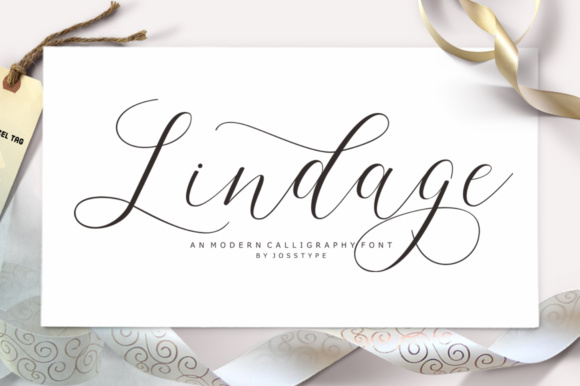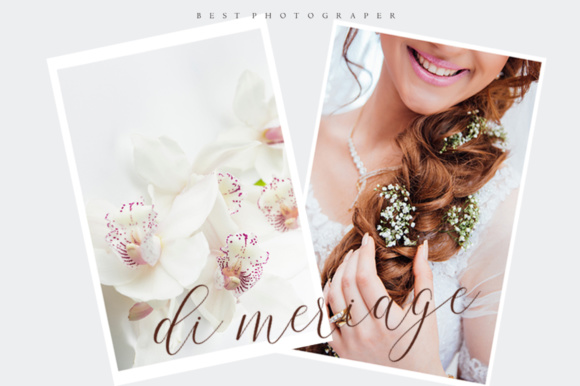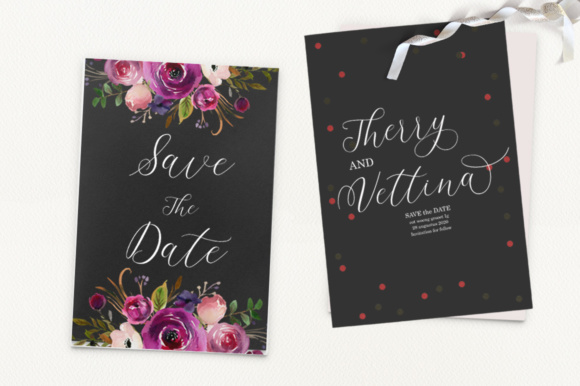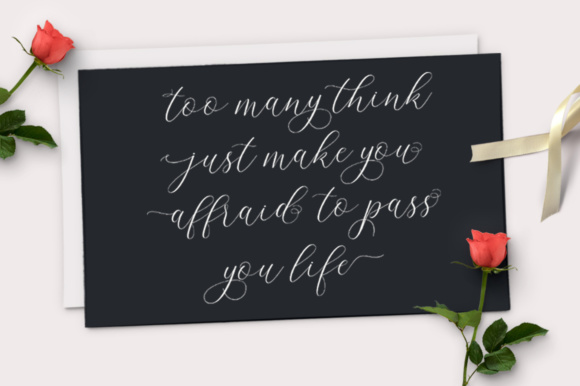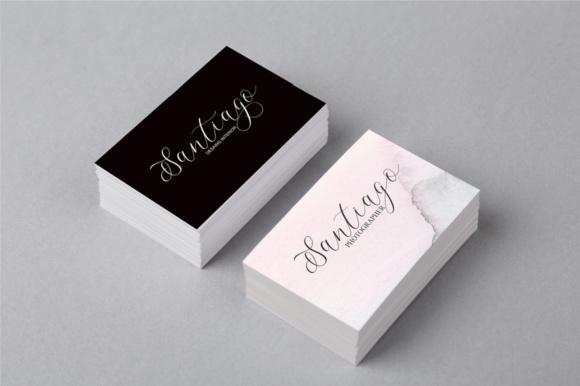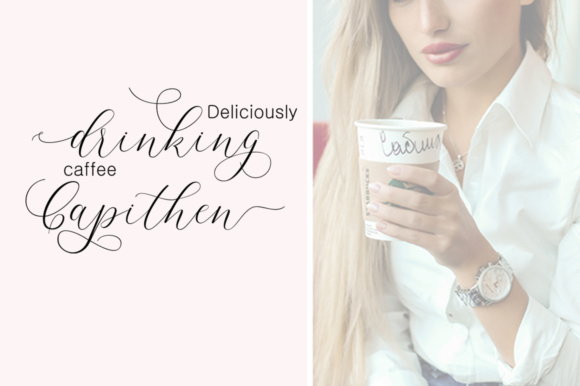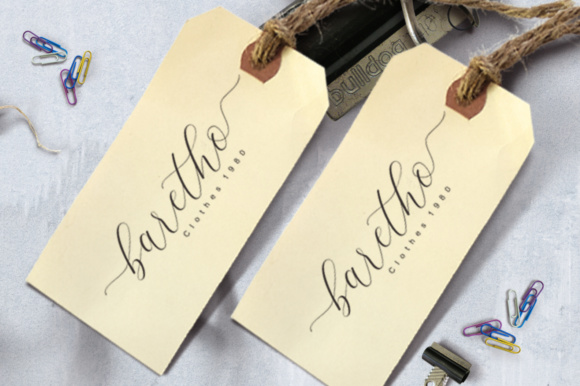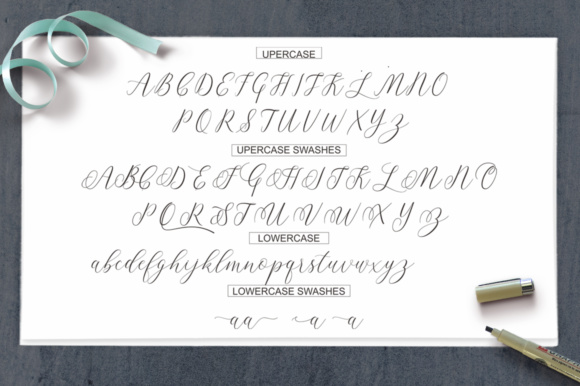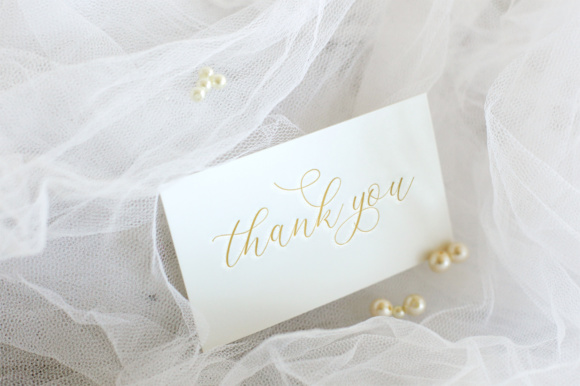
Lindage Font
About Lindage Font
Lindage is a handwritten script font with classic roots; this font pays direct homage to formal script calligraphy and has an extremely elegant and refined appeal.